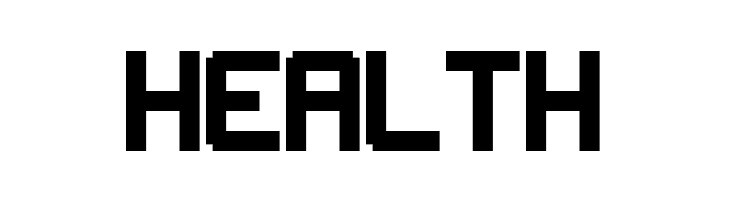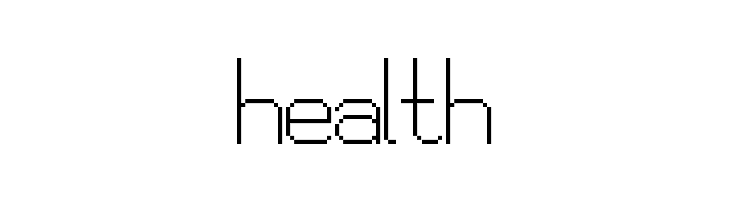
( Fonts by Xerographer Fonts )
A pixelated, digital-style font with a retro, textured appearance.
A pixelated, monospaced font with a retro digital style.
( Fonts by Geronimo )
A bold, pixelated font with a retro, digital aesthetic.
( Fonts by Aaron D. Chand )
A dot matrix style font with a retro digital display appearance.
A bold, pixelated font with a retro digital style.
A bold, angular font with a digital and gothic style.
( Fonts by Southype )
A dot matrix font with a retro, digital scoreboard style.